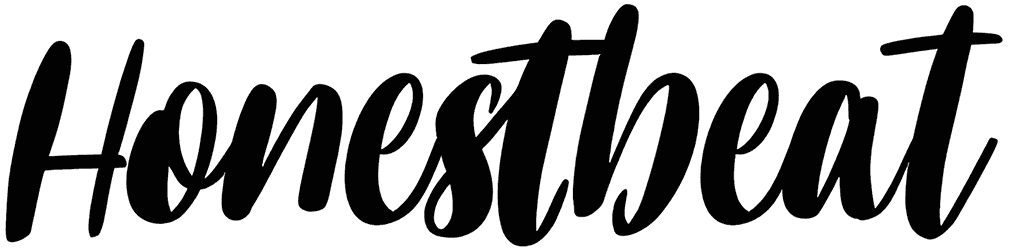
Honestbeat Font
Maybe your projects just need a formal handwriting with a casual touch to look more professional. This is where you can import the Honestbeat font into your projects.
This cursive font is one of the best tools that can depict the beauty of elaborate calligraphy and traditional letters in your designs. This handwritten font is popular for running logos, stationery, official invitations, and packaging. Even without numbers, it pairs with different designs and helps create different moods.